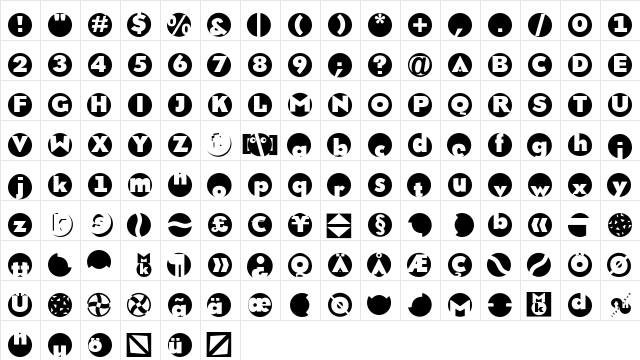
BrixRoundMK Regular Font Preview
BrixRoundMK Regular
Design Context for BrixRoundMK Typeface
BrixRoundMK softens its letterforms with rounded terminals, giving it an approachable, friendly quality that works well in consumer-facing and digital contexts.
Well-suited to UI design, mobile interfaces, and any brand that wants approachability without sacrificing clarity.
Font Pairing: Pairs well with a rounded or humanist sans for body copy, maintaining the friendly tone without relying on BrixRoundMK to carry extended reading.
Pro Tip: Use BrixRoundMK for UI elements, app interfaces, and anywhere a friendly, approachable tone needs to be maintained without sacrificing clarity.